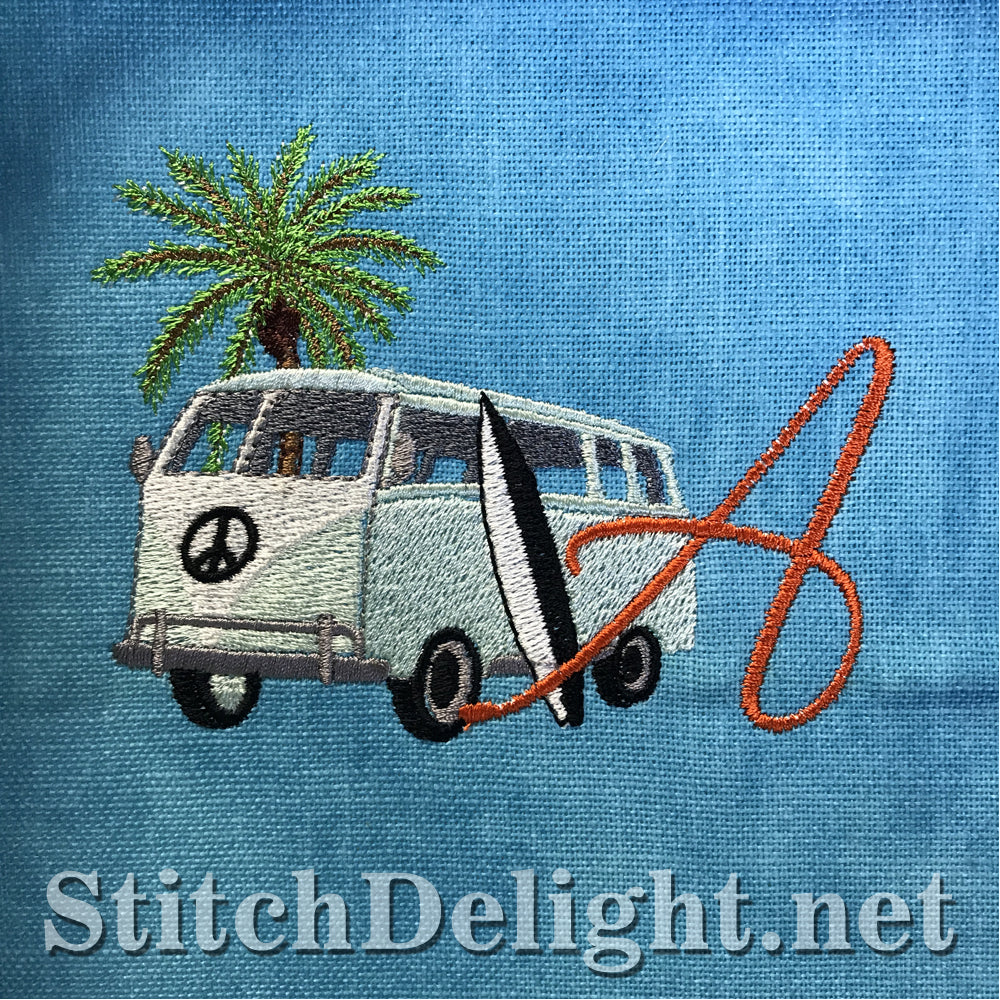
My love for surfing was my inspiration for this stunning set. This font has an average height of 3,4inch. This set contains the complete font. The Hippie Van is available as a separate single too, simply search for HOE0014.